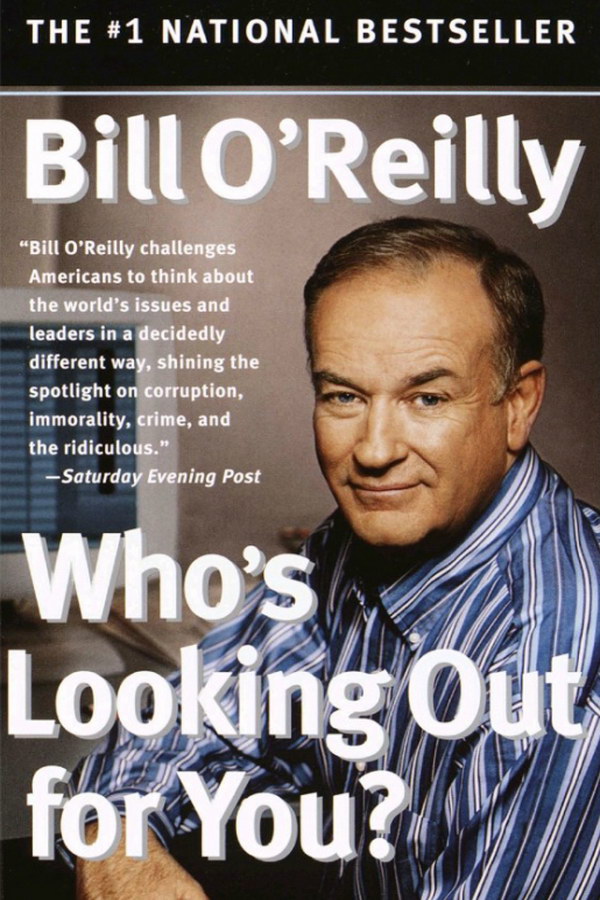
Who’s Looking Out for You Font
The book title "Who’s Looking Out for You" is likely written in FF Meta Cond Bold font, a sans-serif, humanist style typeface designed by Erik Spiekermann for the West German Post Office. You can view and download the font here.